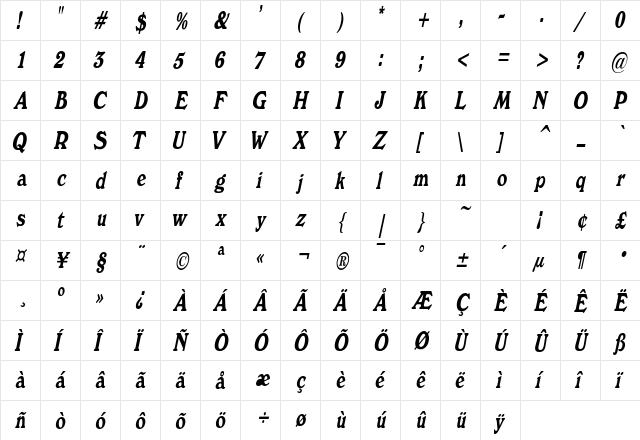
BuckinghamCondensed Italic Font Preview
Design Context for BuckinghamCondensed Typeface
BuckinghamCondensed is a composed and adaptable typeface that performs quietly and consistently across a wide range of design contexts. The slanted form adds forward momentum and visual energy. The condensed width makes it efficient for tight spaces without sacrificing legibility.
Pro Tip: Try BuckinghamCondensed for annotation and caption copy alongside an upright companion — the contrast in angle creates a dynamic but ordered typographic system.